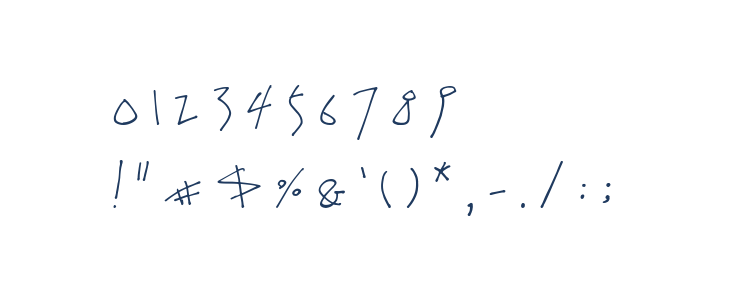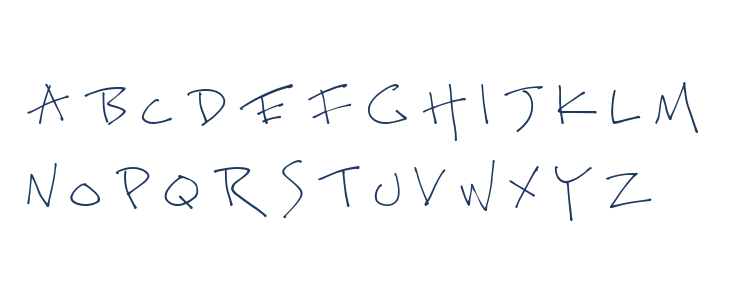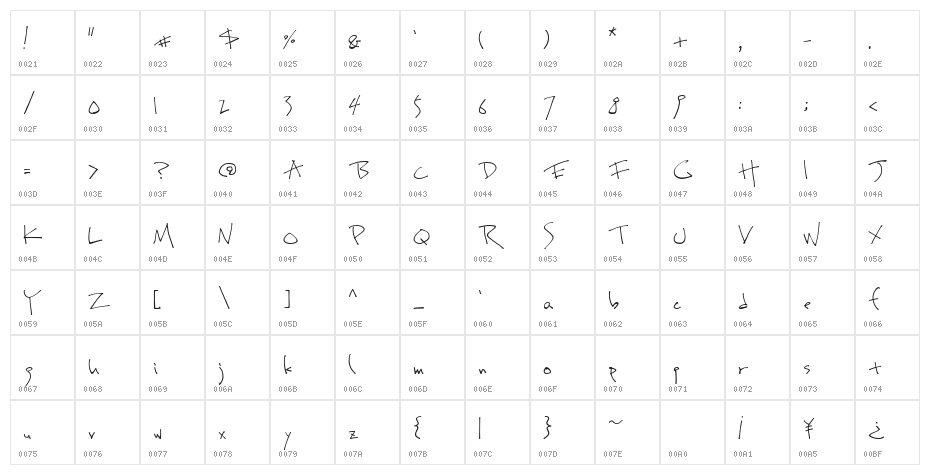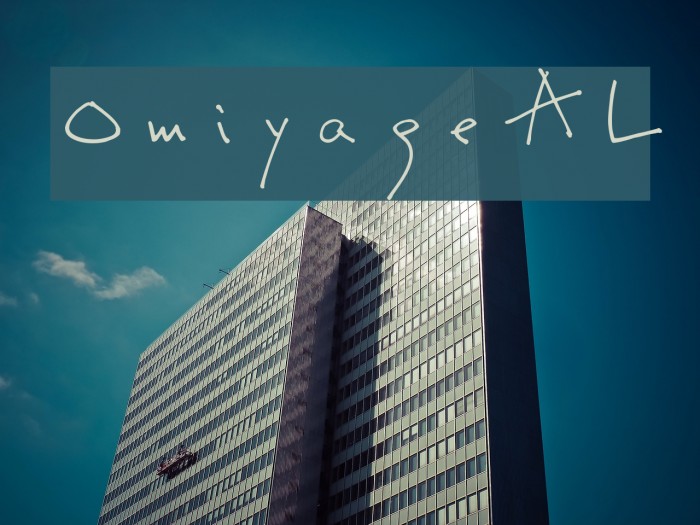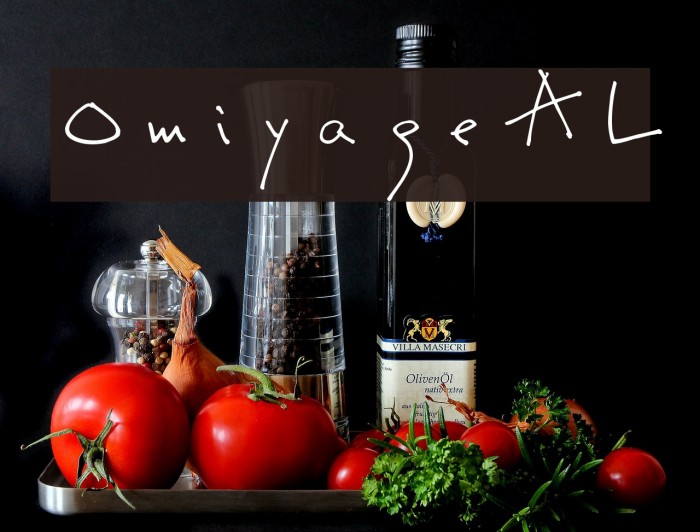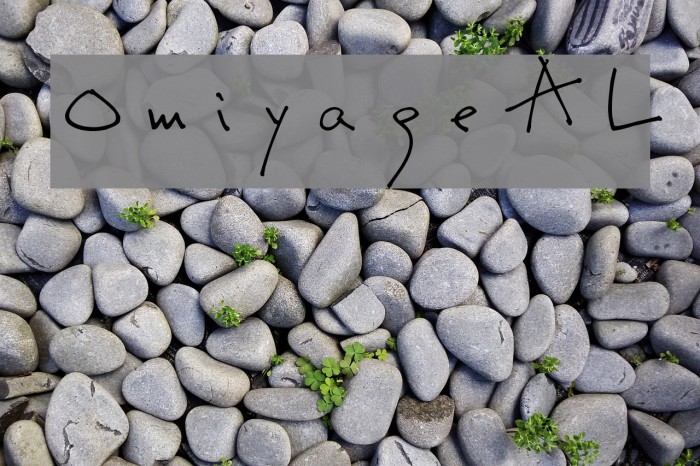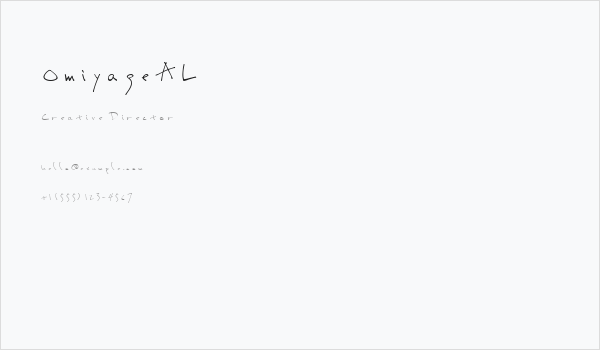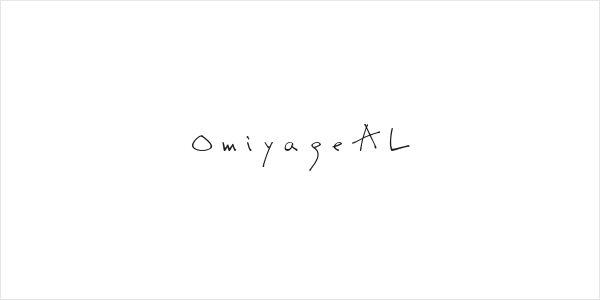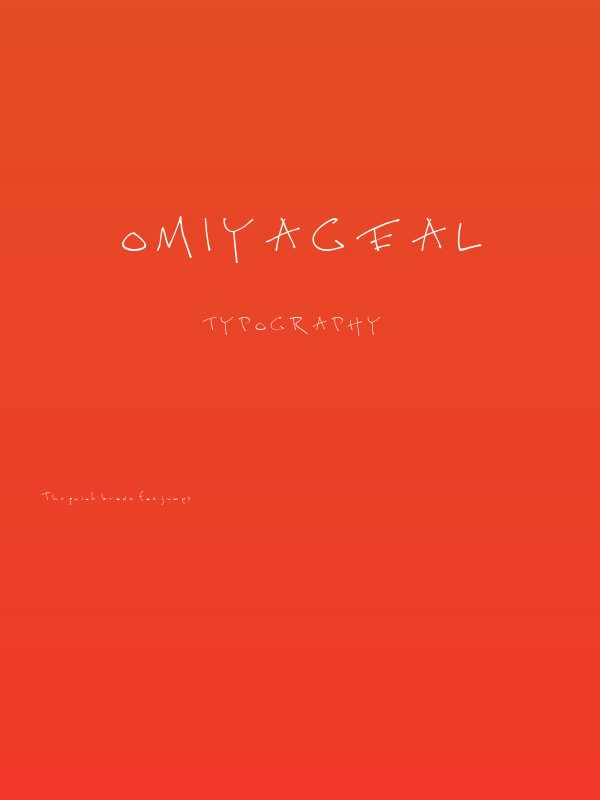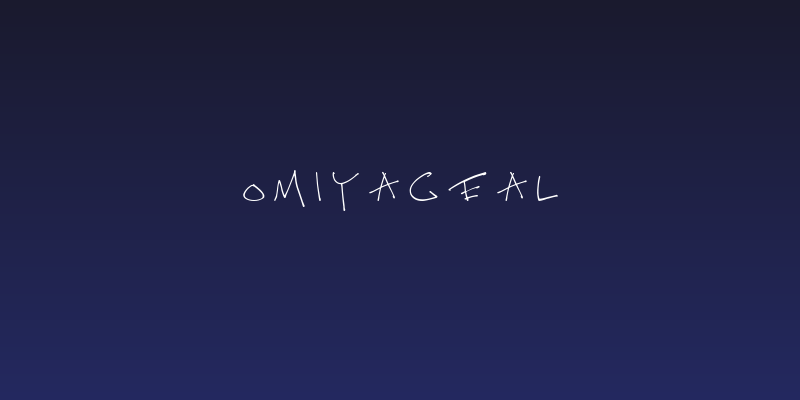
OmiyageAL Font
OmiyageAL Description
This font exhibits a casual, handwritten style with a playful and informal appearance. The characters are unevenly spaced, giving it a dynamic and lively feel. The strokes are thin and slightly irregular, adding to its organic and personal touch. The uppercase letters maintain a consistent height, while the lowercase letters vary in size, enhancing its whimsical nature. The numerals follow the same handwritten aesthetic, with unique and distinct forms. Special characters are included, maintaining the same playful style. This font is ideal for projects that require a personal, friendly, and approachable look.
| Use Case | Logos, Headlines, Informal text |
| Proposed Projects | Greeting cards, personal notes, casual branding, children's books, and social media graphics. |